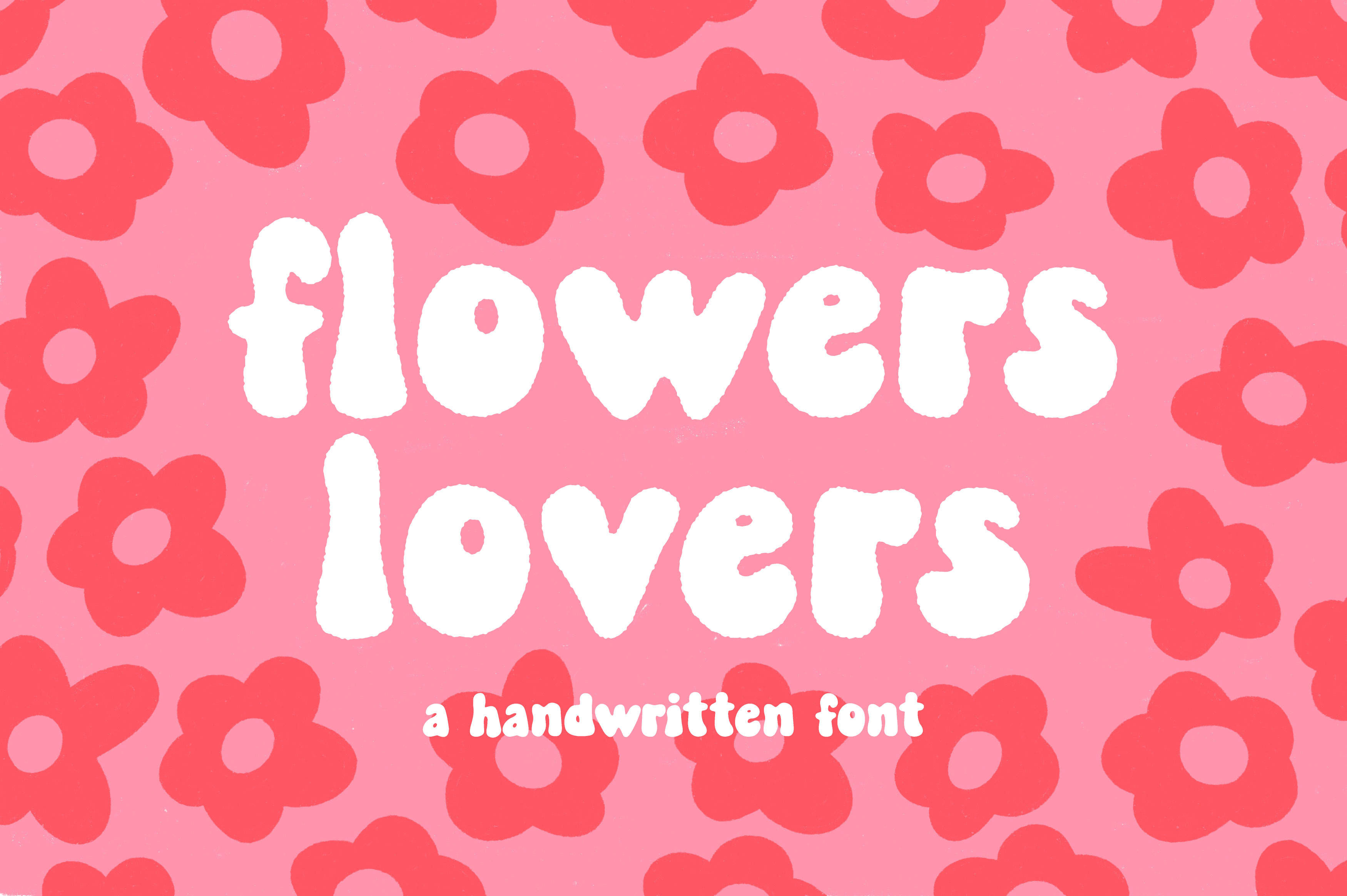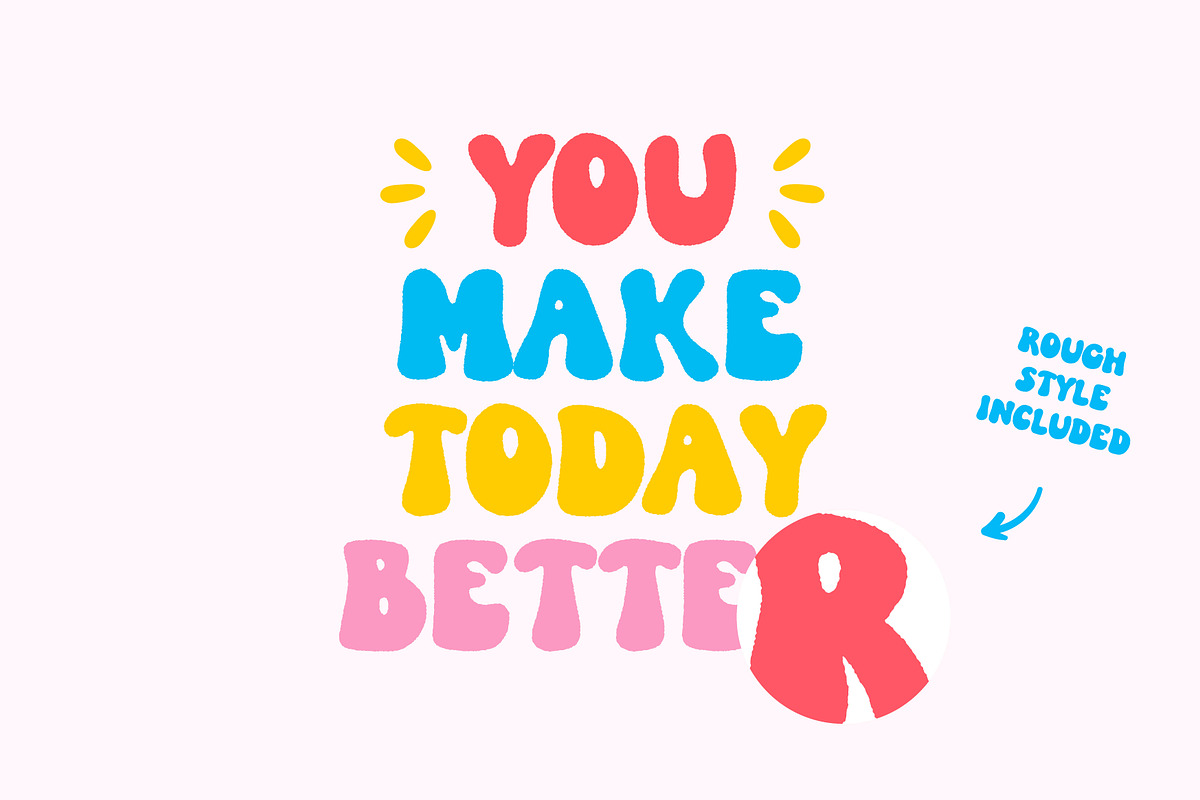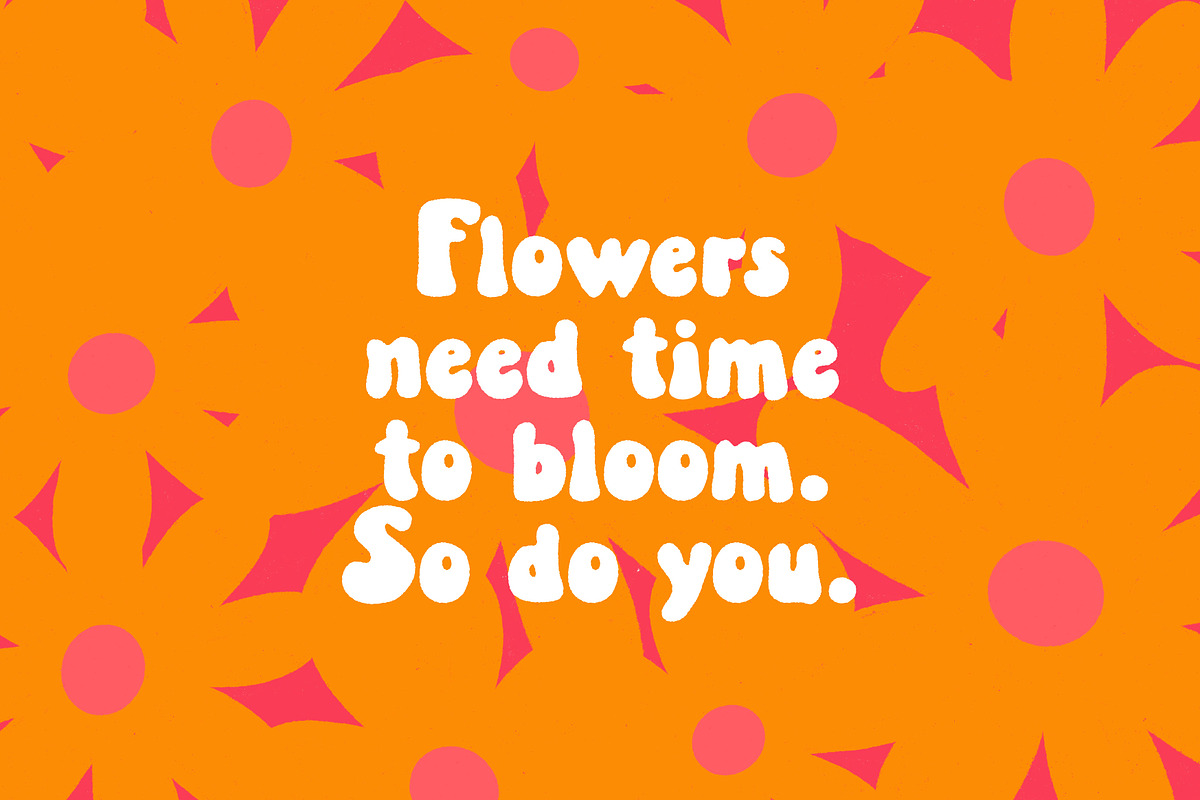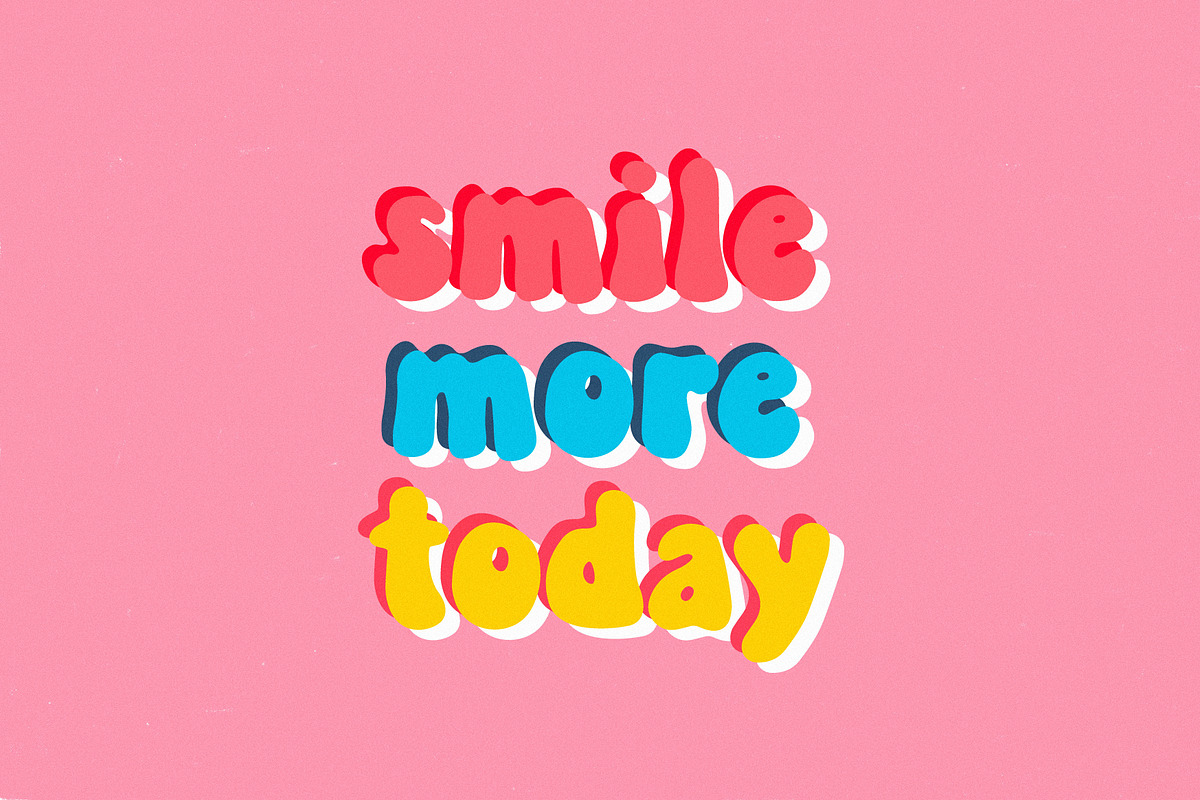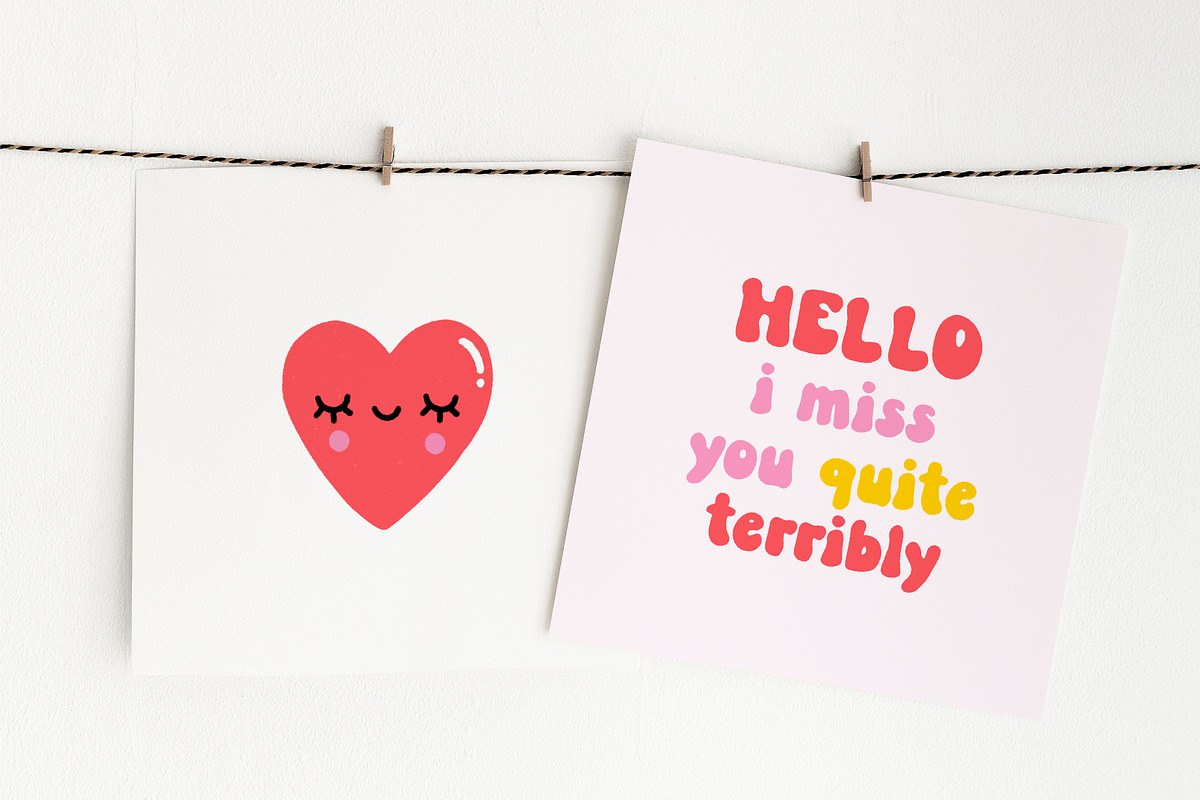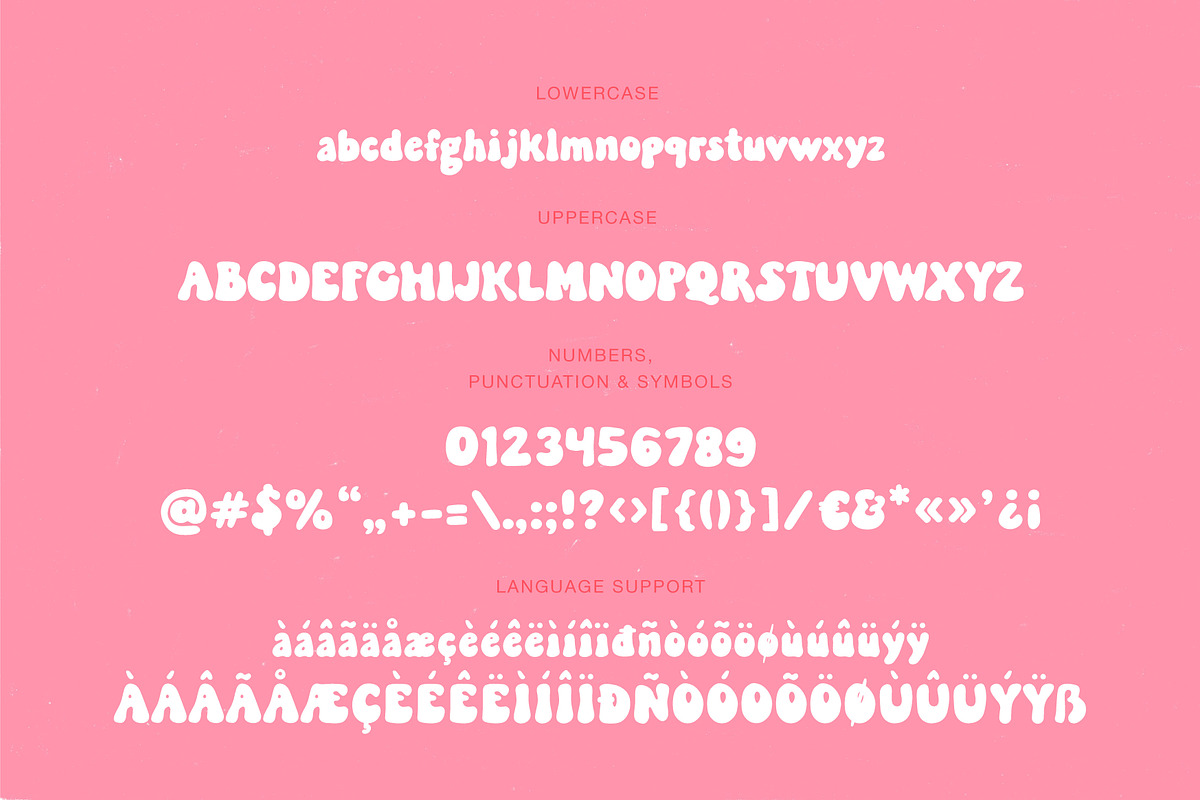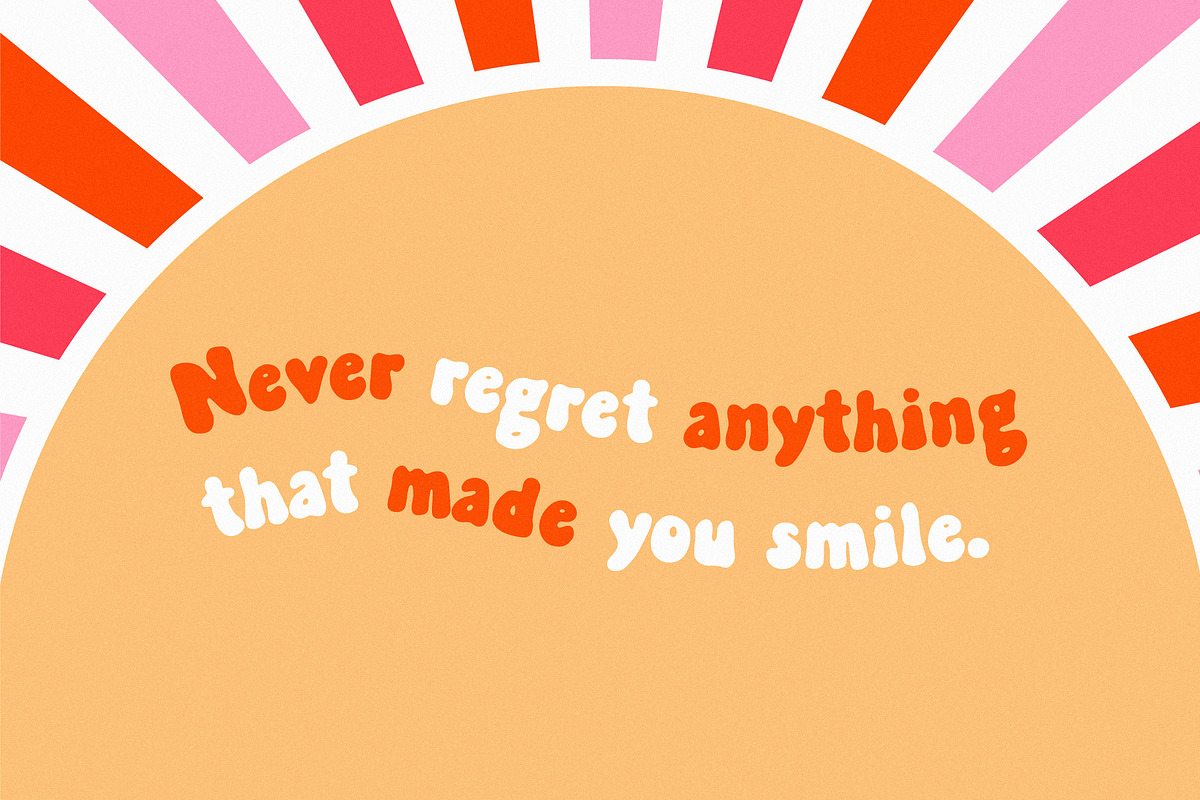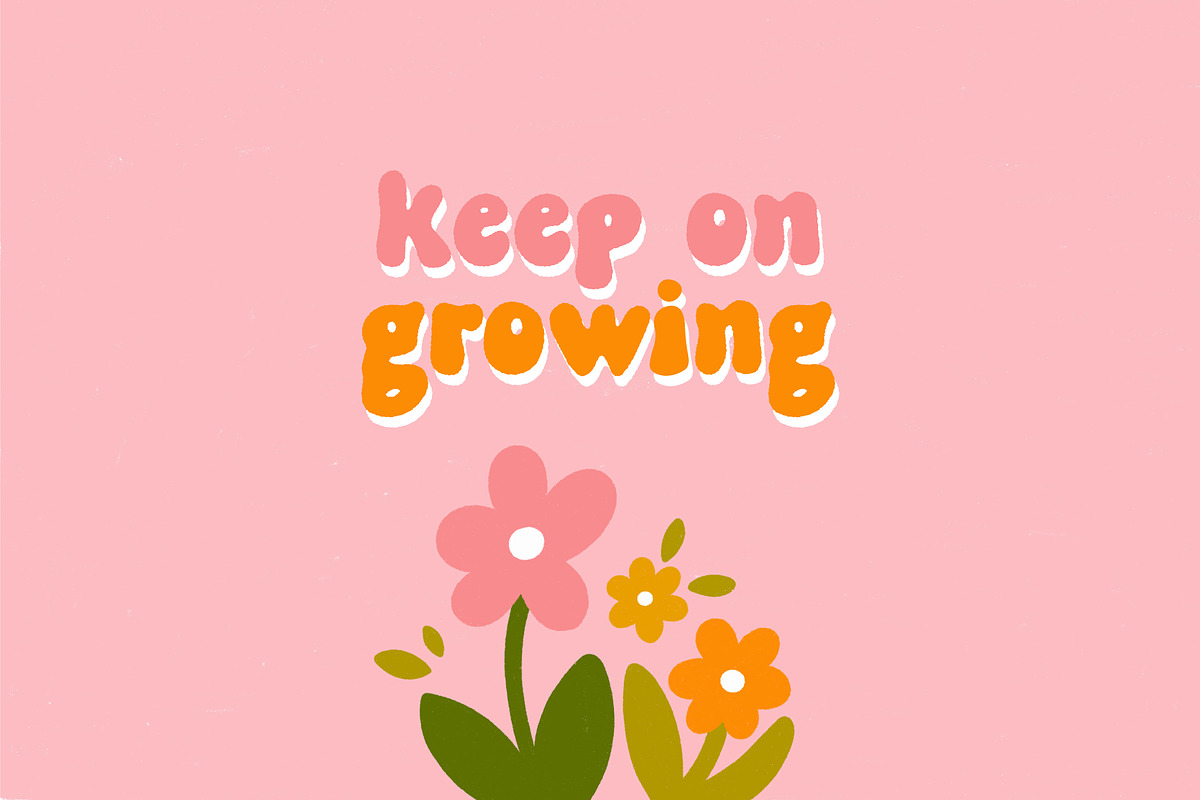
Flowers lovers | Handwritten font
Flowers lovers - hand-lettered bold retro typeface. Perfect for quotes, greeting cards, invitations, posters, business cards, presentations and more.